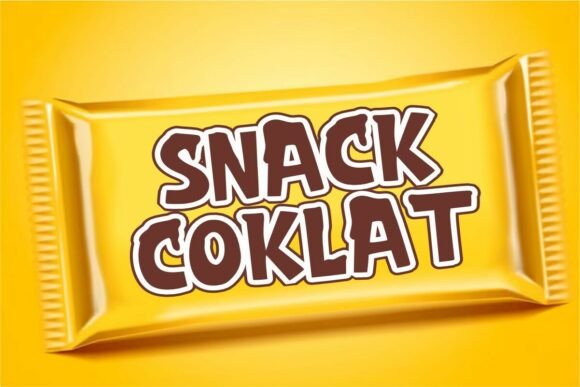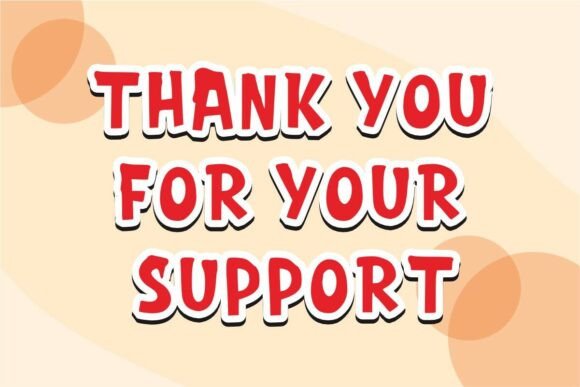
Introducing Comic Cute Font: The Perfect Addition to Your Design Projects
Are you a designer or crafter looking for a modern and cheerful font to elevate your creative projects? Look no further than Comic Cute Font! This delightful font is a fresh take on the classic comic font, and it’s ready to use in any project you have in mind. From logos and stickers to packaging designs and Cricut projects, Comic Cute Font is the perfect addition to your design toolkit.
What is Comic Cute Font?
Comic Cute Font is a modern and cheerful take on the classic comic font. It’s designed to bring a touch of whimsy and fun to your design projects, while still maintaining a level of professionalism and sophistication. The font features bold lines, playful curves, and a dash of personality, making it perfect for a wide range of applications.
What Can I Use Comic Cute Font For?
The possibilities are endless with Comic Cute Font! This versatile font can be used for:
- Logos: Create a fun and memorable logo for your brand or business.
- Stickers: Design eye-catching stickers for laptops, water bottles, or any other surface.
- Packaging designs: Add a touch of personality to your product packaging.
- Cricut projects: Use Comic Cute Font to create custom vinyl decals, iron-on designs, and more.
- News editors: Add a playful touch to your news articles and editorials.
- Comics: Create engaging and fun comics with a unique and playful font.
- Brand identities: Develop a cohesive brand identity with Comic Cute Font.
- T-shirt or apparel industry: Design custom t-shirts, hoodies, and other apparel with Comic Cute Font.
- Posters: Create eye-catching posters for events, promotions, or advertising.
- Magazines: Use Comic Cute Font to add visual interest to your magazine layouts.
- Books: Add a touch of whimsy to your book covers or interior designs.
- Mockups: Create stunning mockups for your design projects.
- Instagram: Use Comic Cute Font to create engaging and fun social media graphics.
- Websites: Add a playful touch to your website designs with Comic Cute Font.
Why Choose Comic Cute Font?
So why choose Comic Cute Font for your design projects? Here are just a few reasons:
- Unique and playful: Comic Cute Font adds a touch of personality to your designs.
- Versatile: Use Comic Cute Font for a wide range of applications.
- Easy to use: Comic Cute Font is ready to use in any project, with no complicated setup required.
- High-quality: Comic Cute Font is designed to deliver high-quality results, every time.
Tips for Using Comic Cute Font
Here are a few tips for getting the most out of Comic Cute Font:
- Experiment with colors: Try pairing Comic Cute Font with bright, bold colors to really make your designs pop.
- Play with sizes: Use Comic Cute Font in a variety of sizes to create visual interest and hierarchy in your designs.
- Mix and match: Combine Comic Cute Font with other fonts and design elements to create unique and engaging designs.
| Font Name | Comic Cute Font |
| Author | fana studio |